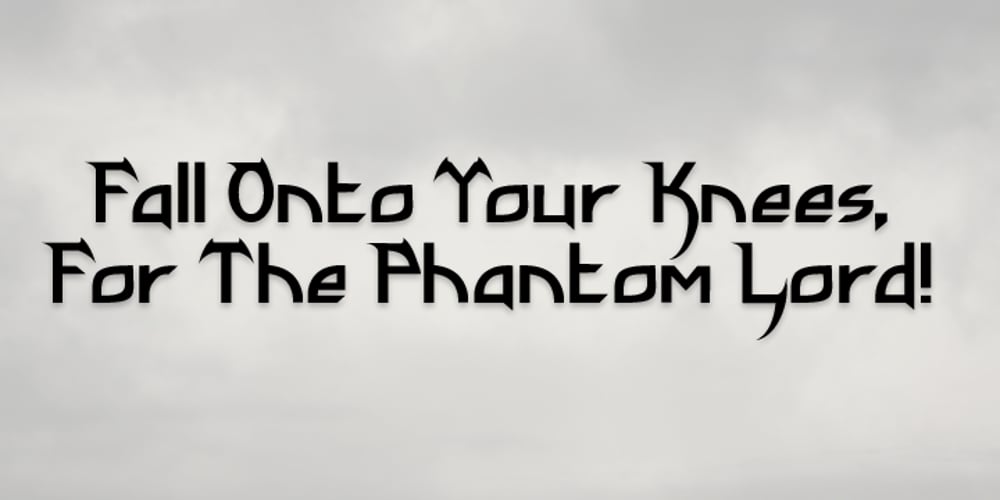
Phantom Lord
Phantom Lord font
Phantom Lord Font Family was designed by James Stone and published by Subversive Type. Phantom Lord contains 1 styles and family package options. Inspired by thrash metal band logos. Ideal for creating a sense of speed and aggression to any project. Ideal for metal bands, graphic novels, action films and video games.